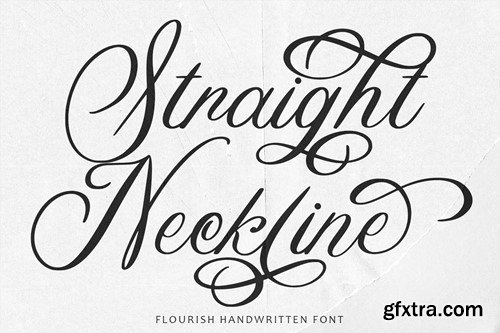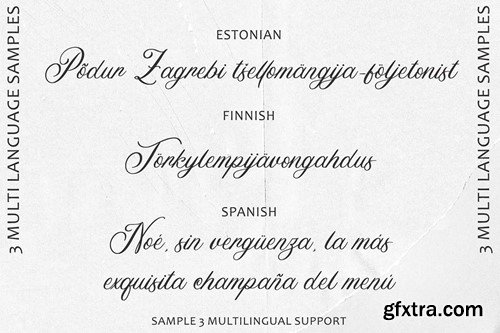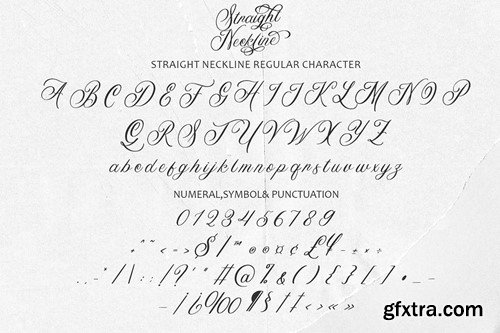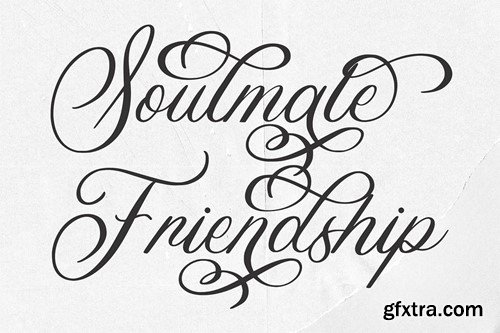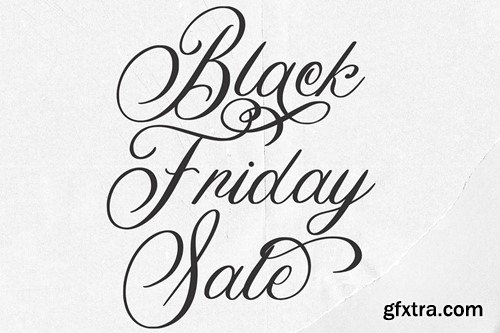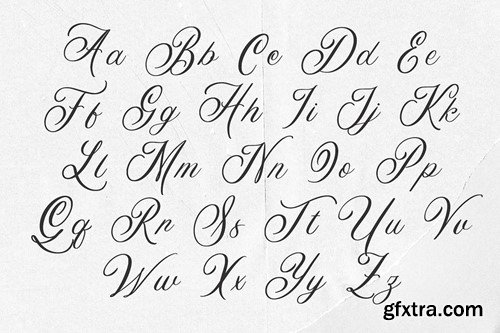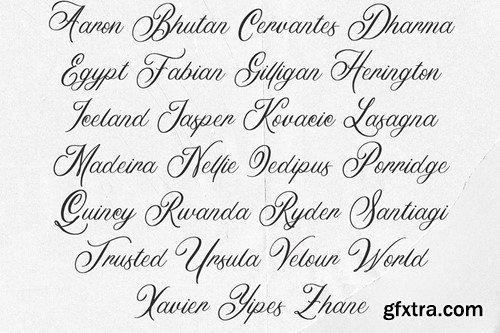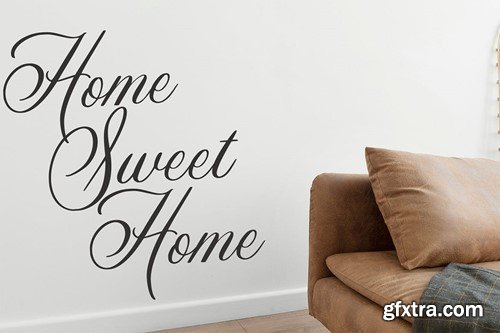
直颈线 - Flora手写体字体 69TH7M8
"Straight Neckline" flourish handwritten font combines the elegance of calligraphy with delicate flourishes, creating a charming and sophisticated typeface. Here's an explanation of its key features: Calligraphic Elegance: "Straight Neckline" emulates the graceful strokes of calligraphy, with fluid letterforms and tapered lines that evoke a sense of refinement and sophistication. Each character is carefully crafted to maintain a consistent and elegant appearance. Delicate Flourishes: What sets "Straight Neckline" apart is its intricate flourishes, which adorn select letters and add a decorative touch to the typography. These delicate embellishments enhance the font's visual appeal and lend it a sense of whimsy and charm. Handwritten Aesthetic: Despite its calligraphic inspiration, "Straight Neckline" retains a handwritten aesthetic, with subtle variations in stroke width and imperfections that mimic the natural irregularities of handwriting. This adds warmth and authenticity to the typography. Versatility: "Straight Neckline" is versatile and adaptable to various design contexts. It can be used for elegant invitations, wedding stationery, branding materials, signage, and more, adding a touch of sophistication to any project. Readability: While "Straight Neckline" features decorative flourishes, readability remains a priority. Each character is designed to maintain clarity and legibility, ensuring that text remains easy to read even at smaller sizes. Customization Options: Depending on the font variation, "Straight Neckline" may offer customization options such as alternate characters or ligatures. These features allow designers to personalize the typography and create unique typographic compositions that suit their specific needs. Overall, the "Straight Neckline" flourish handwritten font offers a perfect balance of elegance, charm, and readability. Its calligraphic inspiration, delicate flourishes, and handwritten aesthetic make it a standout choice for designers seeking to add a touch of sophistication and whimsy to their projects.